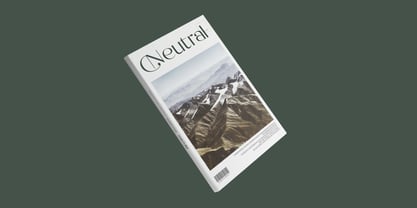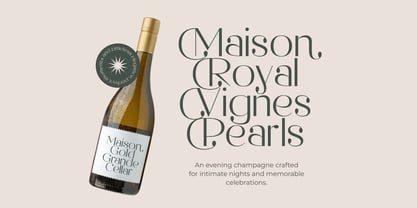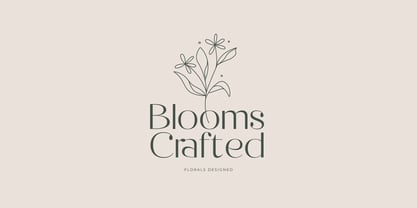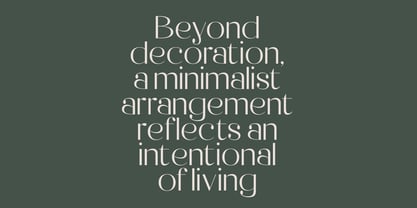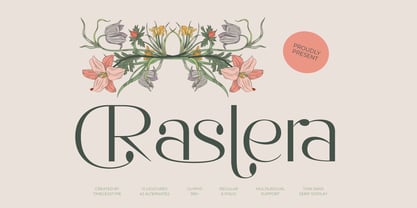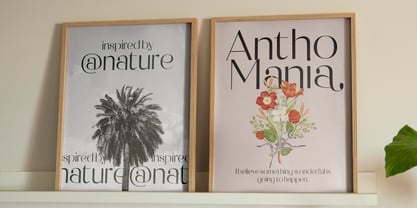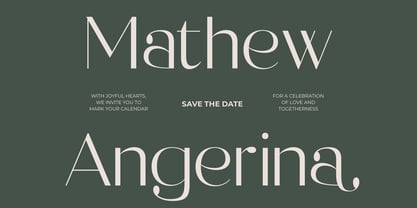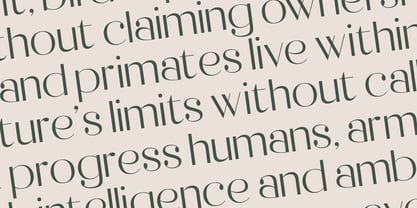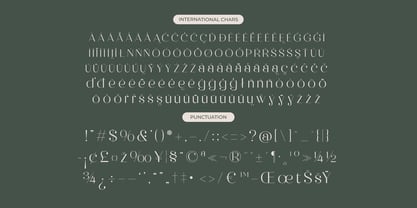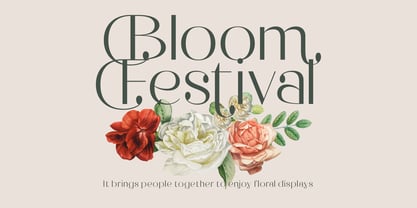
Raslera
La familia tipográfica Raslera fue diseñada por Heru Utama Putra y publicada por Timelesstype Studio. Raslera contiene 2 estilos y opciones de paquete familiar. Más información sobre esta familia
Craslera is a refined thin serif display font inspired by botanical elegance and modern editorial design. Featuring graceful curves, sharp contrast, and subtle ornamental touches, it delivers a sophisticated aesthetic perfect for luxury branding, fashion magazines, beauty packaging, invitations, and high-end visual identities. With 12 ligatures, 42 stylistic alternates, 385+ glyphs, and both Regular & Italic styles, Craslera offers extensive flexibility for custom typography while maintaining a clean, timeless look. Its multilingual support and elegant thin-serif construction make it an ideal choice for designers seeking a fresh, organic, and premium editorial typeface with an artistic floral influence.